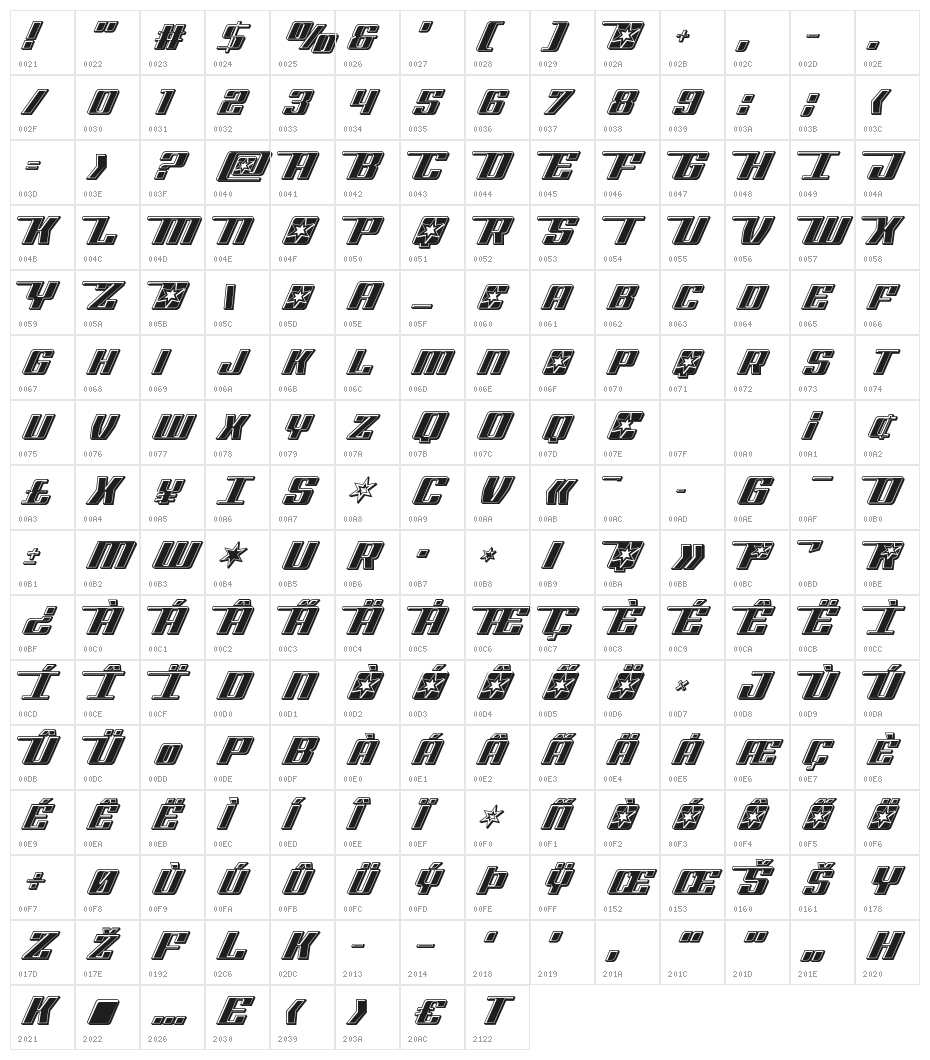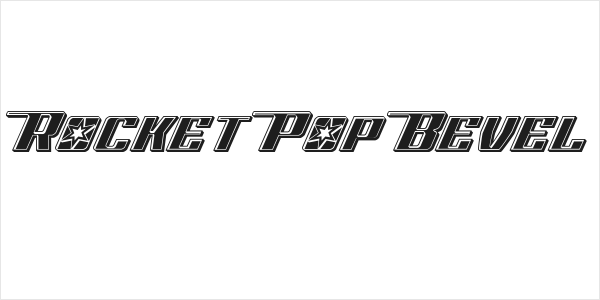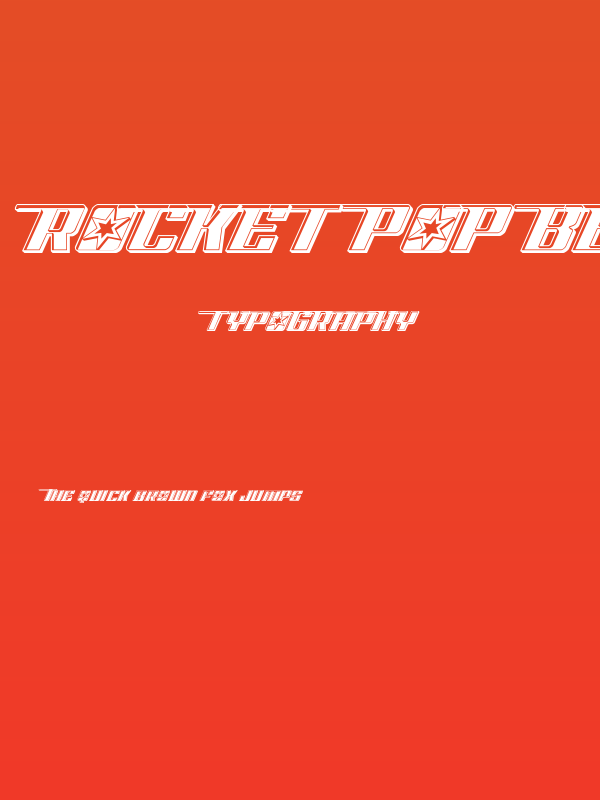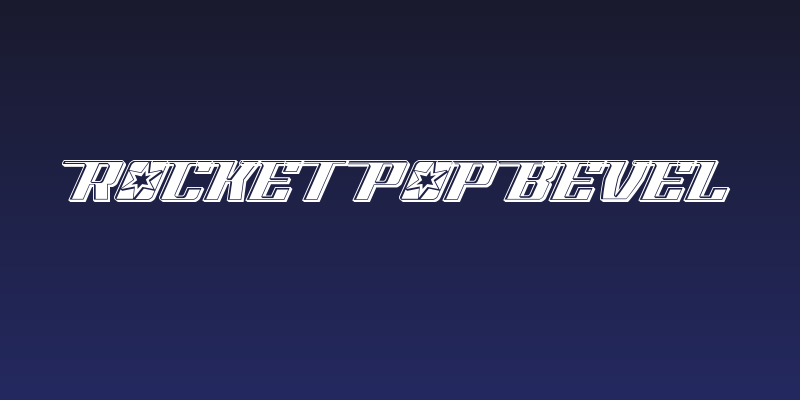
Rocket Pop Bevel Font
Rocket Pop Bevel Description
This font features a bold, dynamic style with a three-dimensional bevel effect that gives it a striking, futuristic appearance. The characters are outlined with a thick black border, enhancing their visibility and impact. Some letters incorporate star motifs, adding a playful and unique element to the design. The font is highly stylized, with sharp angles and a sense of motion, making it ideal for attention-grabbing headlines or logos. Its distinct look is reminiscent of retro-futuristic themes, combining elements of both vintage and modern design.
| Overall Style | Futuristic, Retro |
| Proposed Projects | Ideal for use in sci-fi themed posters, video game titles, or branding for tech companies. |